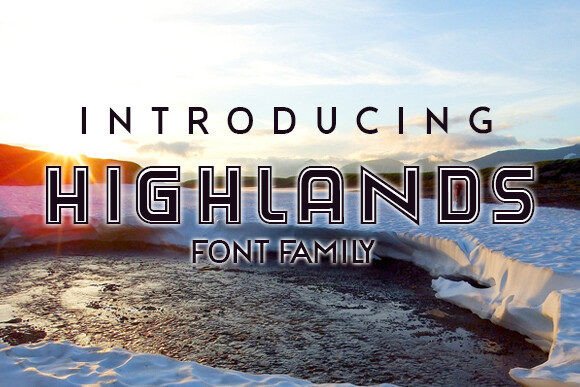
Highlands: A Neat Font Family for Bold Designs
In the crowded landscape of digital and print media, the right typeface can be the difference between a design that gets noticed and one that fades into the background. Highlands is not just another addition to your library; it is a versatile, neat font family designed to bring clarity and character to any project. Whether you are crafting a minimalist logo, designing a vibrant poster, or laying out a sophisticated editorial piece, this typeface offers a unique blend of structure and warmth. It stands out as a reliable choice for designers who need a premium font that performs consistently across various mediums without sacrificing aesthetic appeal.
The Visual Personality of Highlands
At first glance, Highlands presents itself as a refined serif font with distinct modern characteristics. Unlike traditional serifs that can feel heavy or dated, this typeface features crisp lines and balanced proportions that make it incredibly legible at both large display sizes and smaller body text settings. The "neat" quality mentioned in its description comes from its clean terminals and uniform stroke weights, which create a sense of order and professionalism.
However, do not mistake its cleanliness for sterility. The personality of Highlands shines through in its subtle curves and open apertures, giving it an approachable, human touch. This makes it an excellent alternative when you want to avoid the rigid formality of standard sans serif font options like Helvetica or Arial, but still require a level of sophistication that a casual handwritten font cannot provide. It occupies a sweet spot in modern typography, bridging the gap between classic editorial elegance and contemporary digital utility.
When evaluating the visual hierarchy, Highlands excels because its weight distribution allows headings to command attention without overwhelming the supporting text. The contrast between the thick and thin strokes is moderate, ensuring that the text remains readable even on lower-resolution screens or textured paper stocks. This versatility is crucial for brand identity work, where consistency across different applications is paramount.
Where Highlands Shines in Real-World Projects
The true test of any creative font lies in its application. Highlands has been engineered to perform exceptionally well in high-impact scenarios. Consider the following areas where this typeface delivers maximum value:
- Posters and Flyers: For event promotions or community announcements, Highlands provides the necessary punch. Its bold weights grab attention from a distance, while its readability ensures that key details like dates and locations are instantly understood.
- Prints and Packaging: In packaging design, space is often limited, and every letter counts. The compact yet spacious nature of this font allows for elegant product labeling that looks premium on everything from coffee bags to skincare boxes.
- Logo Design: Many small business owners struggle to find a commercial font that feels unique enough for a logo but generic enough to remain timeless. Highlands offers a distinctive look that helps brands stand out in a saturated market while maintaining professional credibility.
- Web and Social Media Graphics: In the fast-scrolling world of social media, your headline needs to stop the thumb. Using Highlands for Instagram stories, blog headers, or website hero sections creates a polished look that aligns with current web design trends.
- Editorial Design: For magazines, newsletters, and e-books, the font's readability makes it an ideal choice for long-form content. It reduces eye strain and keeps the reader engaged, a critical factor for publishers aiming to increase retention.
Beyond these specific categories, Highlands works beautifully in personal projects too. Hobbyists creating scrapbooks, crafters designing custom stationery, or bloggers building a personal portfolio will find that this font elevates their work, making it look professionally executed without requiring advanced design skills.
Impact on Readability and Brand Perception
Choosing a typeface is never just about aesthetics; it is a strategic decision that influences how your audience perceives your brand. When you implement Highlands, you are signaling reliability, attention to detail, and a modern sensibility. The neatness of the font suggests organization and competence, traits that are highly valued by consumers in sectors ranging from finance to lifestyle.
Readability is the cornerstone of effective communication. If your audience struggles to decipher your message, the design fails regardless of how beautiful it looks. Highlands addresses this by offering clear character differentiation. Similar letters like 'I', 'l', and '1' are distinct, preventing confusion. This clarity enhances visual hierarchy, guiding the reader's eye naturally from the headline to the subhead and finally to the body copy. By reducing cognitive load, you increase the likelihood that your audience will engage with your content and take the desired action.
Furthermore, consistency in typography builds recognition. When a brand uses Highlands across all touchpoints—from business cards to email signatures—it creates a cohesive visual language. This repetition reinforces brand memory, making it easier for customers to identify and trust your business over time. In a competitive marketplace, this level of brand identity cohesion can be a significant differentiator.
By treating Highlands as a strategic design asset rather than just a decorative element, you unlock its full potential. It is a tool that empowers designers, entrepreneurs, and creators to communicate their vision with precision and style. Whether you are printing a batch of flyers for a local launch or designing the next big digital campaign, this neat font family is ready to elevate your work.